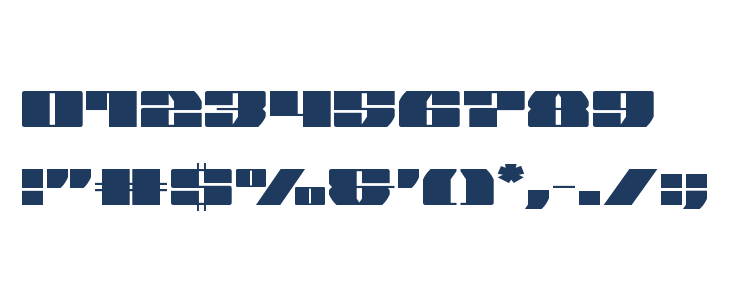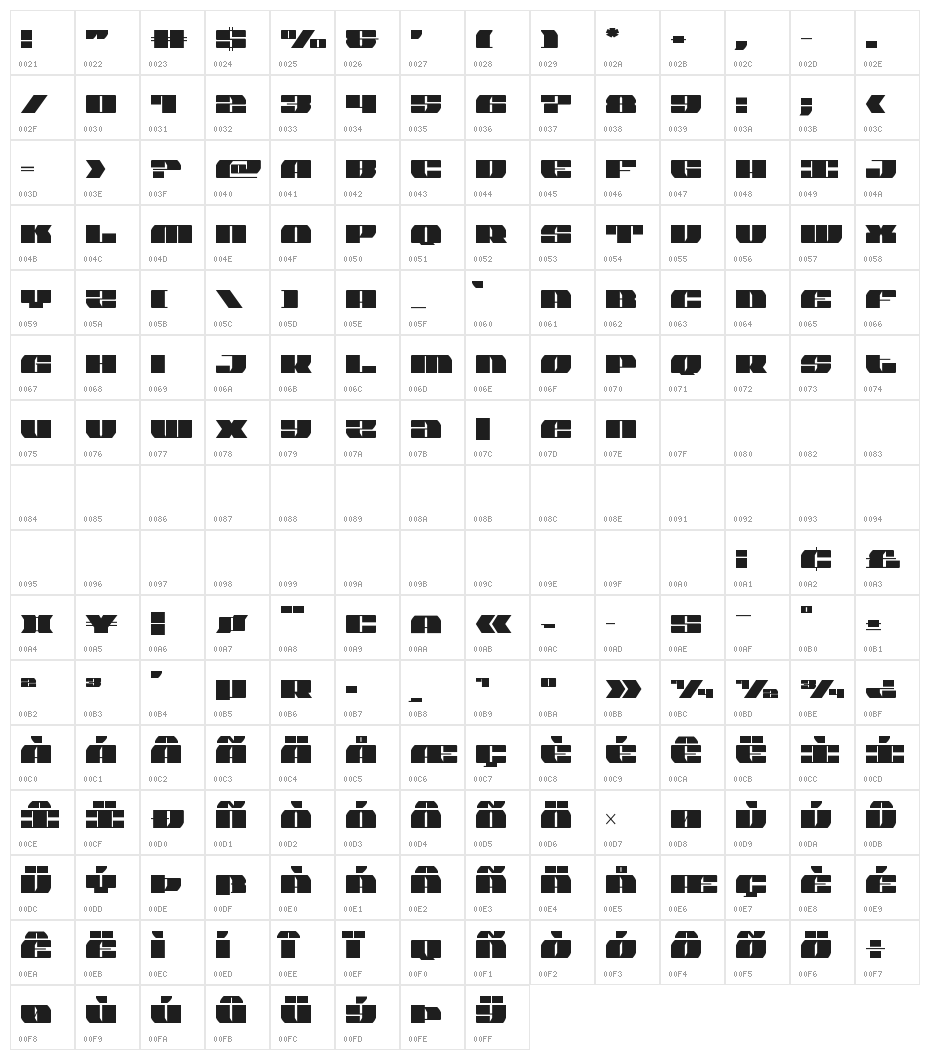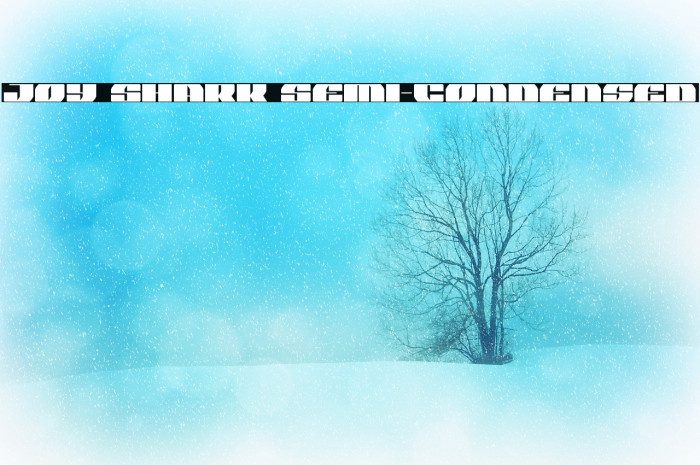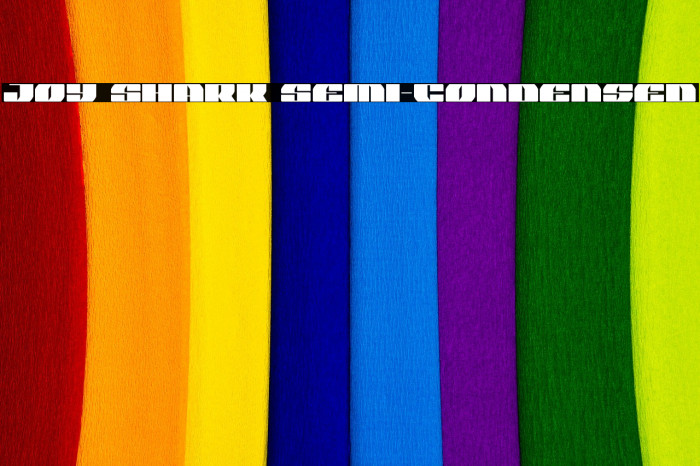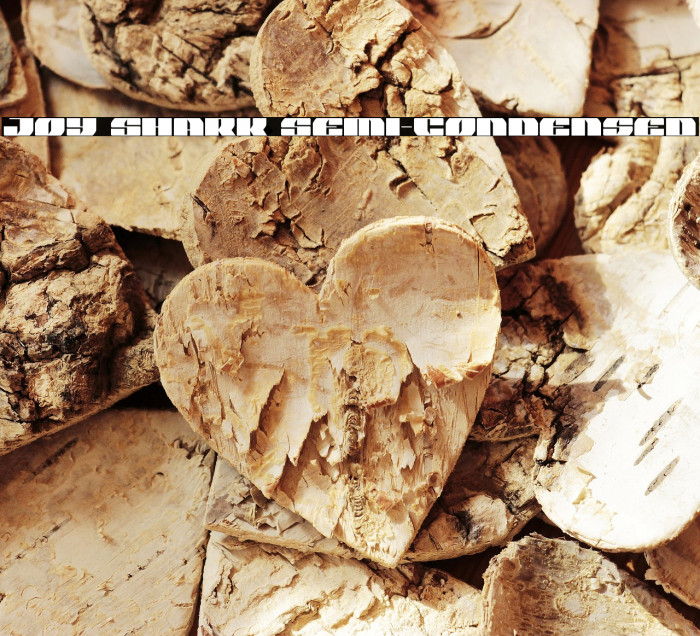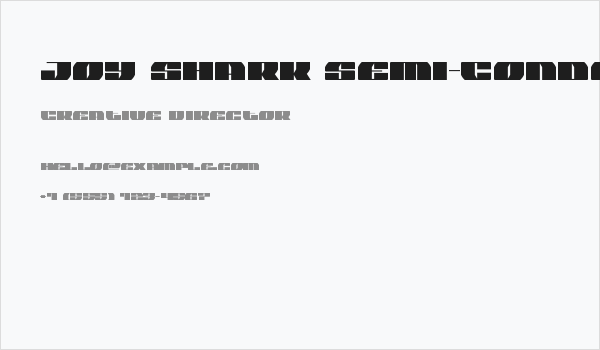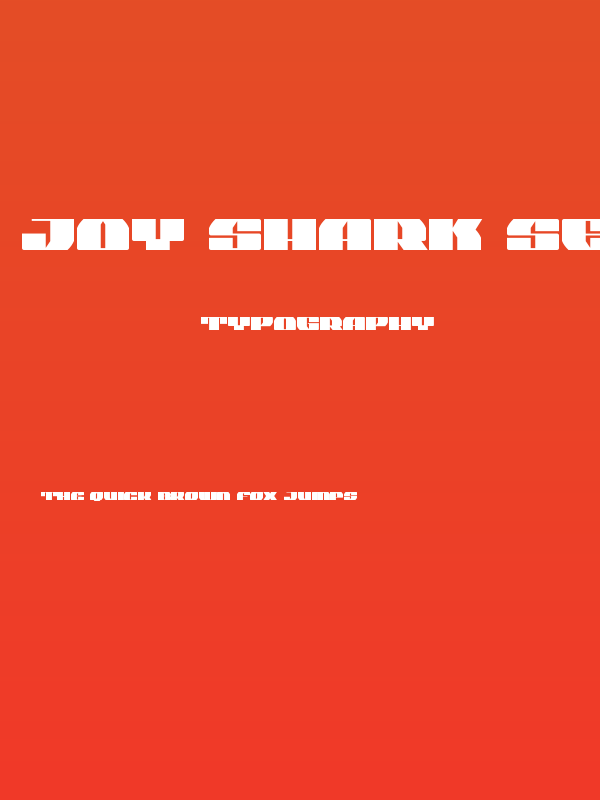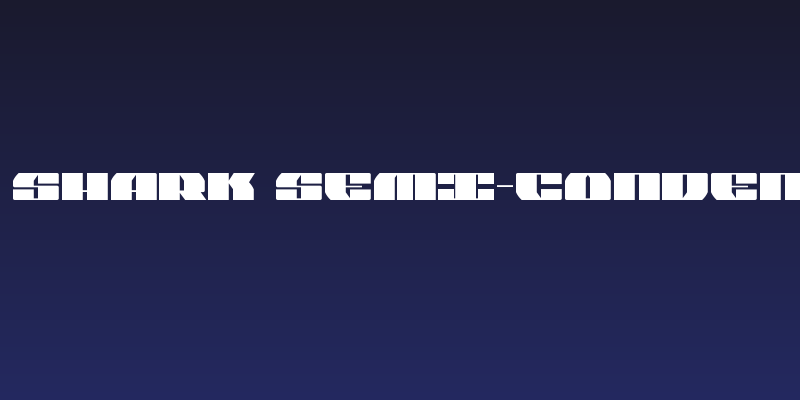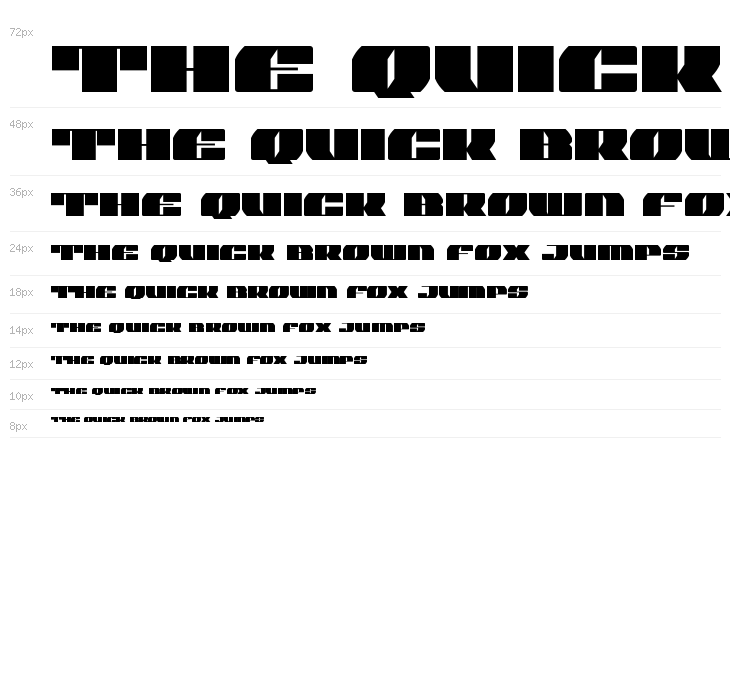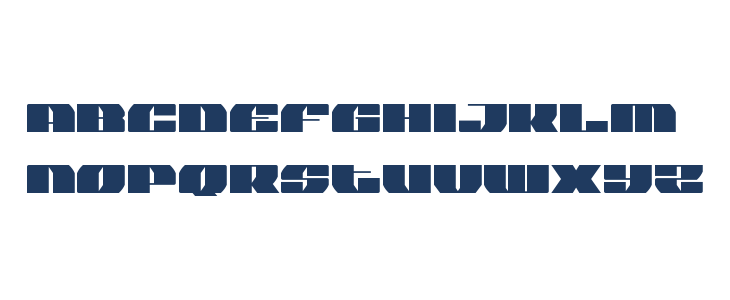
Joy Shark Semi-Condensed Font
Joy Shark Semi-Condensed Description
This font features a bold and geometric design with a semi-condensed width, giving it a strong and impactful presence. The characters are constructed with sharp angles and straight lines, creating a modern and industrial feel. The uppercase and lowercase letters maintain a consistent style, with minimal contrast in stroke thickness, emphasizing uniformity and strength. The numbers and special characters follow the same design principles, ensuring a cohesive look across all elements. This font is ideal for projects that require a bold statement and a contemporary aesthetic.
| Overall Style | Modern, Industrial |
| Proposed Projects | Ideal for branding, posters, headlines, and any design requiring a bold, modern look. |